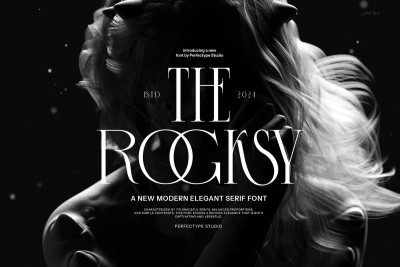
Girly Font Bundle Free Download
Looking to add a touch of charm and sweetness to your designs? The Girly Font Bundle Free Download offers a beautiful collection of feminine, elegant typefaces that are perfect for personal projects, social media graphics, or invitations. Whether you're designing for a bridal shower, baby announcement, or a cute logo, this bundle brings that soft, whimsical aesthetic your project needs.
These fonts are crafted with precision to ensure both readability and style, making them a must-have for any creative designer. Each font in the bundle has its own personality — from playful curves to romantic flourishes, you'll find the perfect match for your next design.